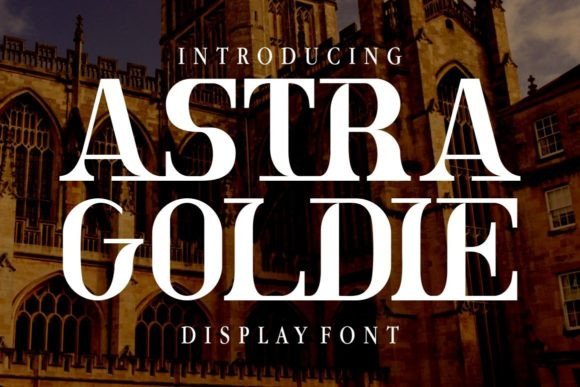
The Designer’s Delight: Uncovering the Elegance of Astra Goldie Font
I’ll never forget the time I was working on a project for a high-end fashion brand, and I was struggling to find the perfect font to match their sleek and sophisticated vibe. The client was particular about the aesthetic, and I had to deliver. After hours of scouring through font libraries, I stumbled upon Astra Goldie font, and it was love at first sight! ✨ The elegant, trendy, and lively design instantly resonated with the brand’s identity, and I knew I had found the perfect fit.
What I Love About Astra Goldie Font
- ✨ Elegant and sophisticated design that’s perfect for professional projects
- ✅ Well-balanced lines and bold font style that grabs attention
- 🎉 Surprising alternate glyphs that add a touch of uniqueness to your work
While Astra Goldie font is an excellent choice, there are a few things to keep in mind: ⚠️
- 🤔 Some users might find the font a bit too ornate for certain projects, such as casual or playful designs
- ⚠️ Limited use of uppercase letters, which might require creative workarounds
The Designer Inspiration Behind Astra Goldie Font
Astra Goldie font was inspired by the works of renowned typographer, Alexei Vikharyev, who sought to create a font that embodied elegance and sophistication. With Astra Goldie, Vikharyev aimed to craft a font that would be both timeless and trendy, making it perfect for designers seeking a unique touch.
Q: Is Astra Goldie font suitable for body text?
A: While Astra Goldie font is elegant and sophisticated, it may not be the best choice for body text due to its ornate design. It’s better suited for headlines, titles, and short paragraphs.